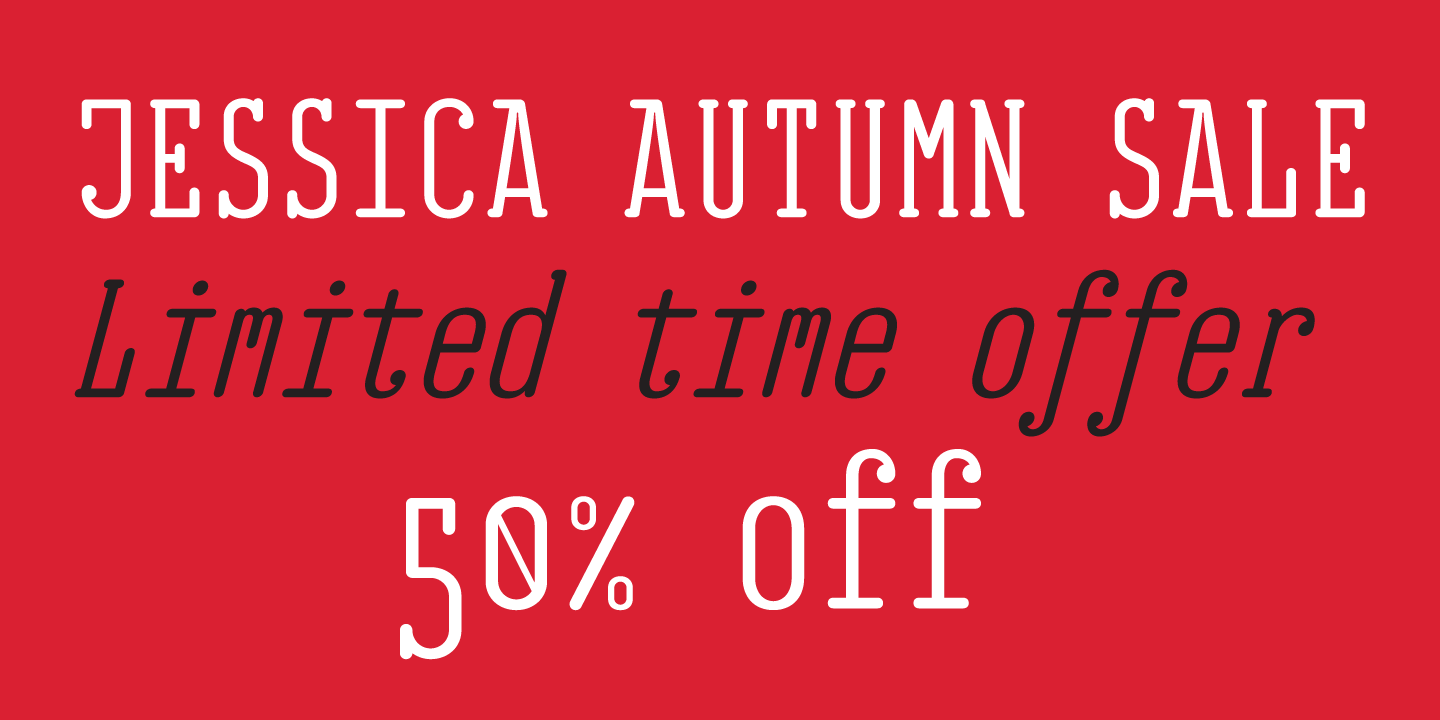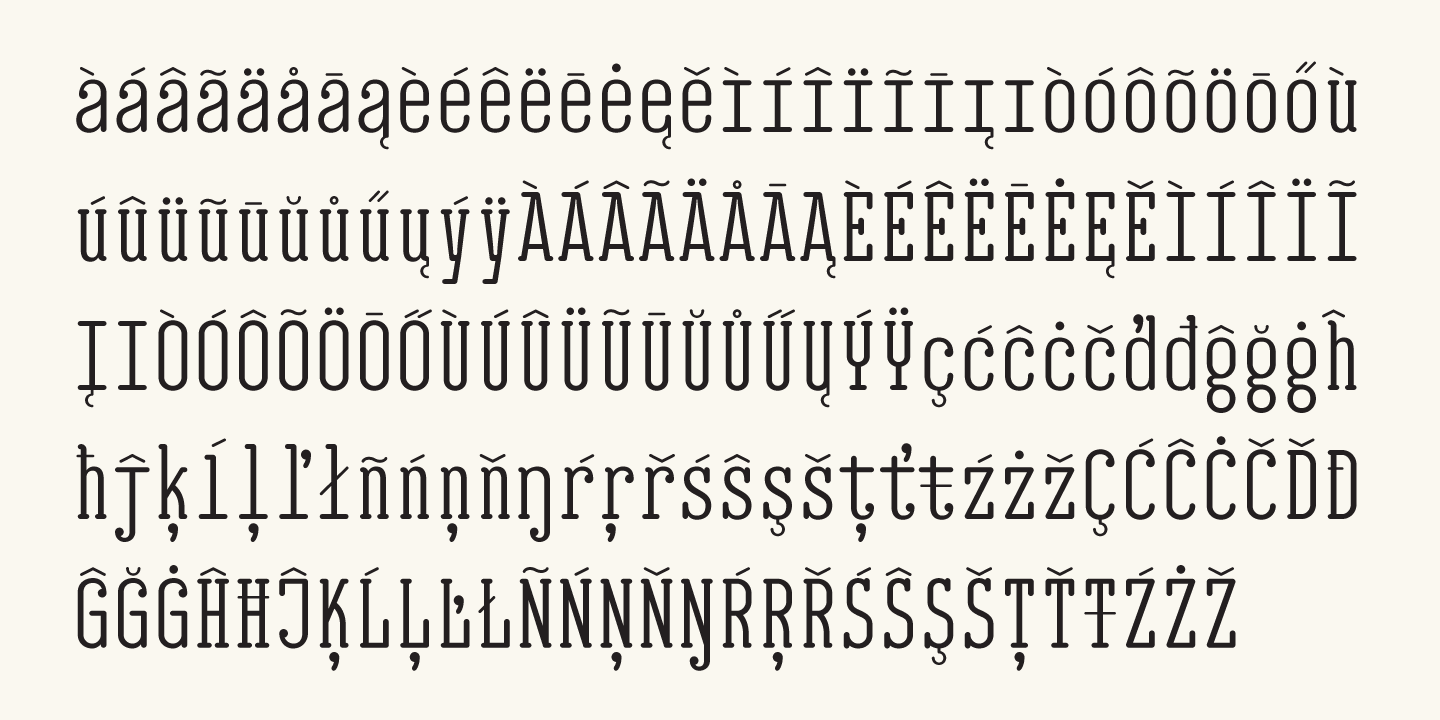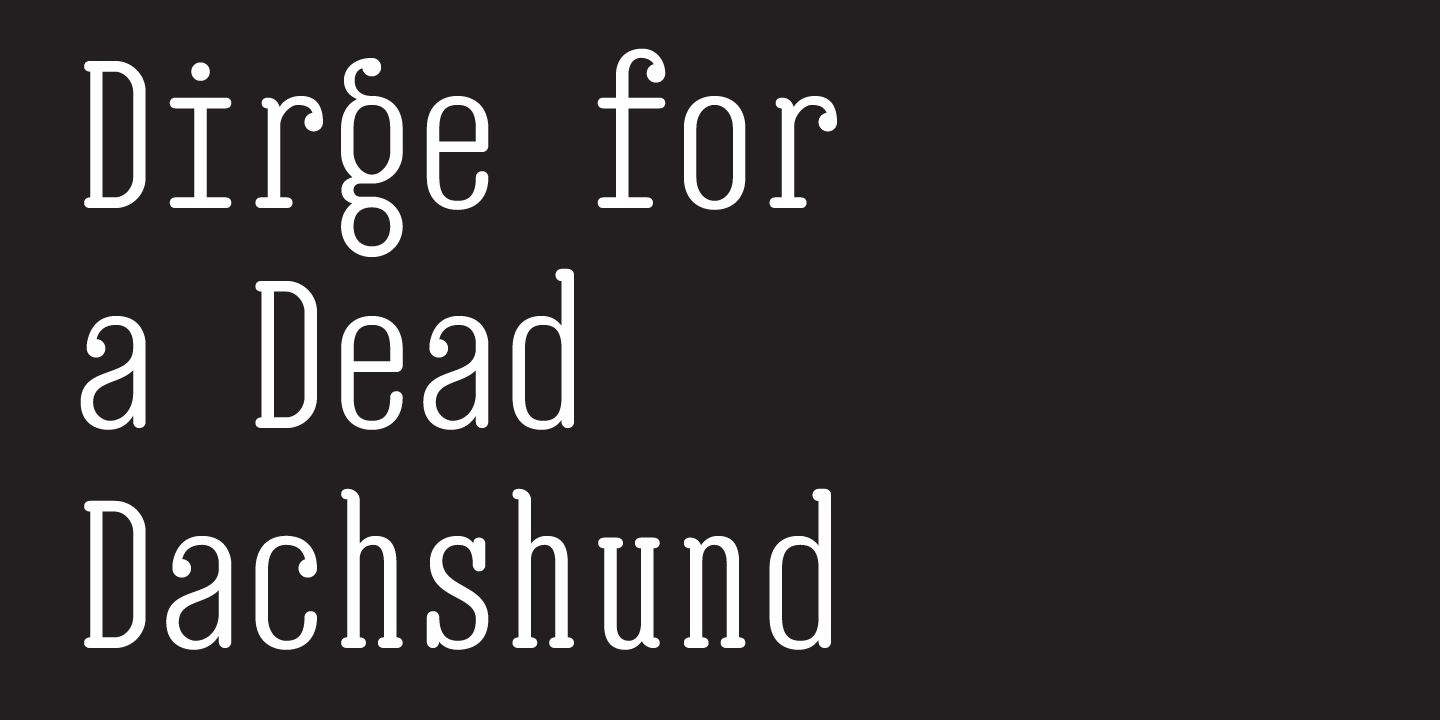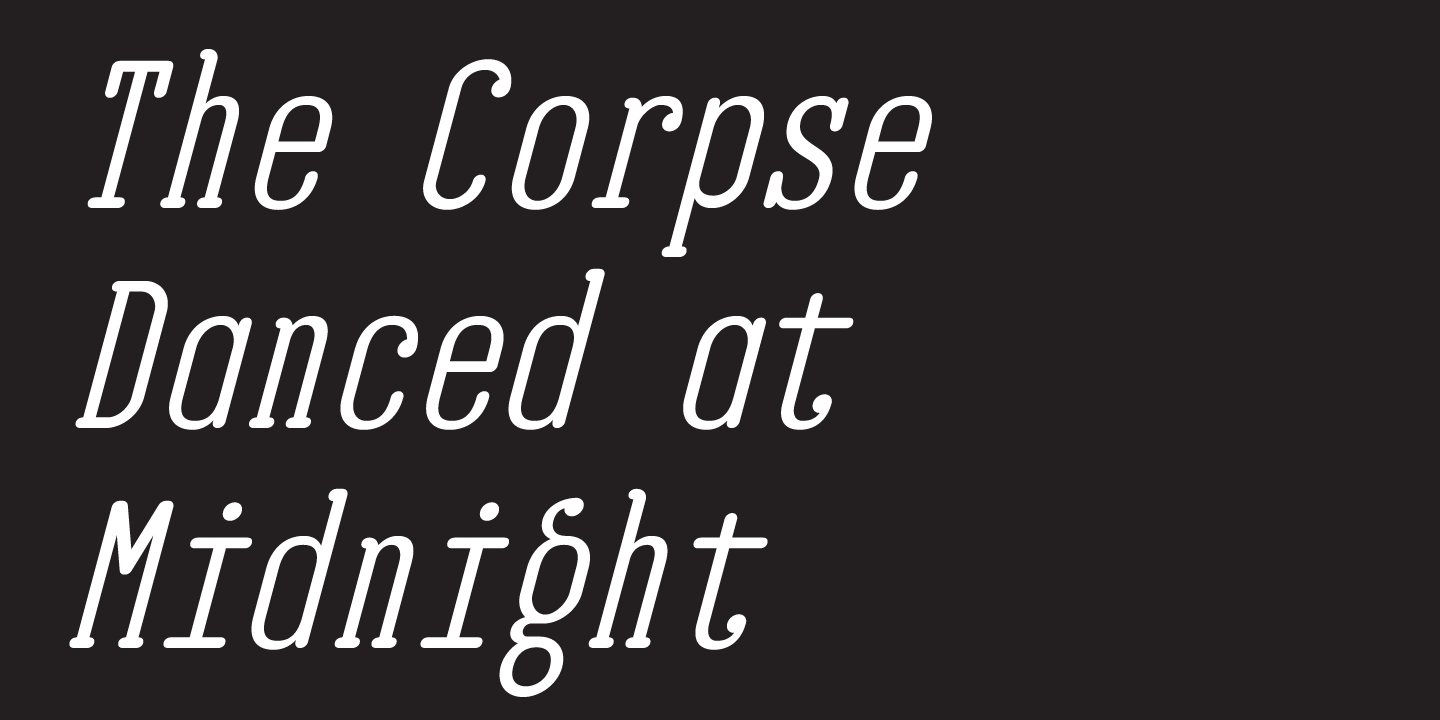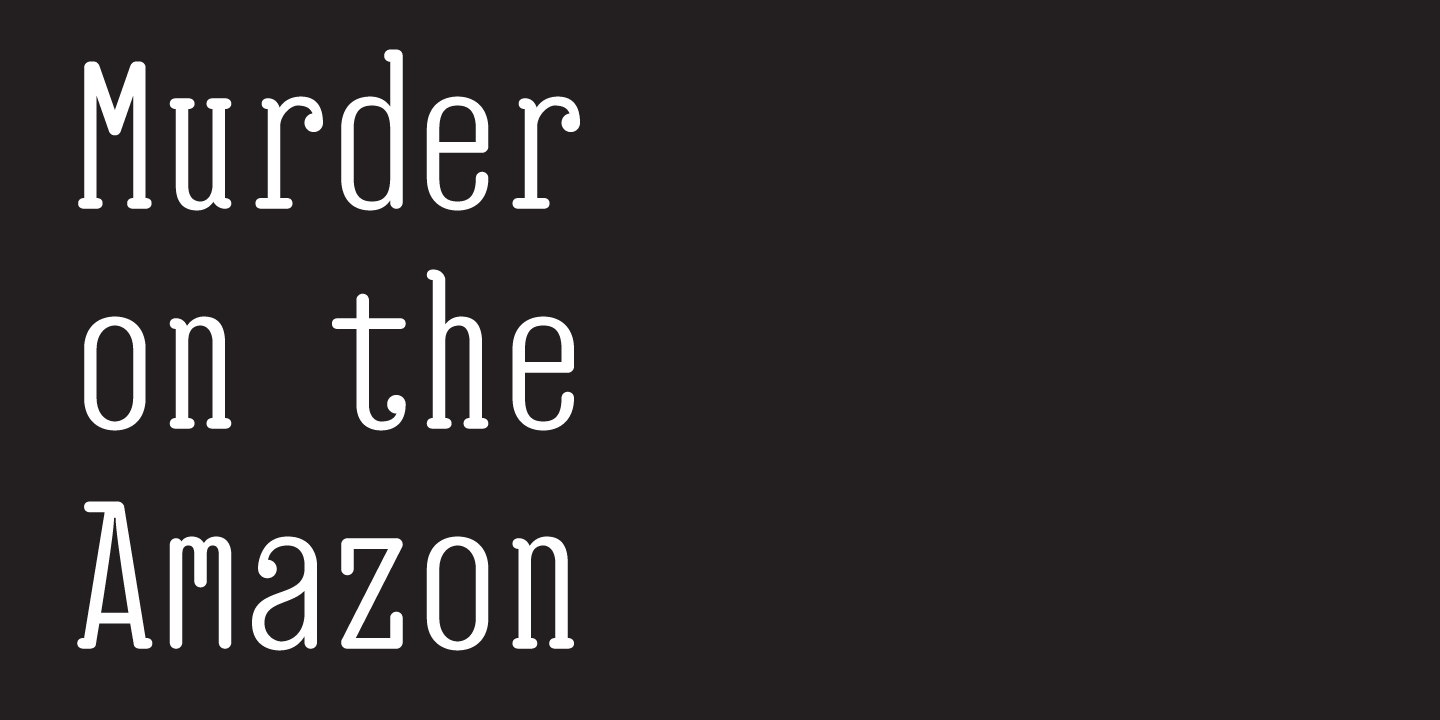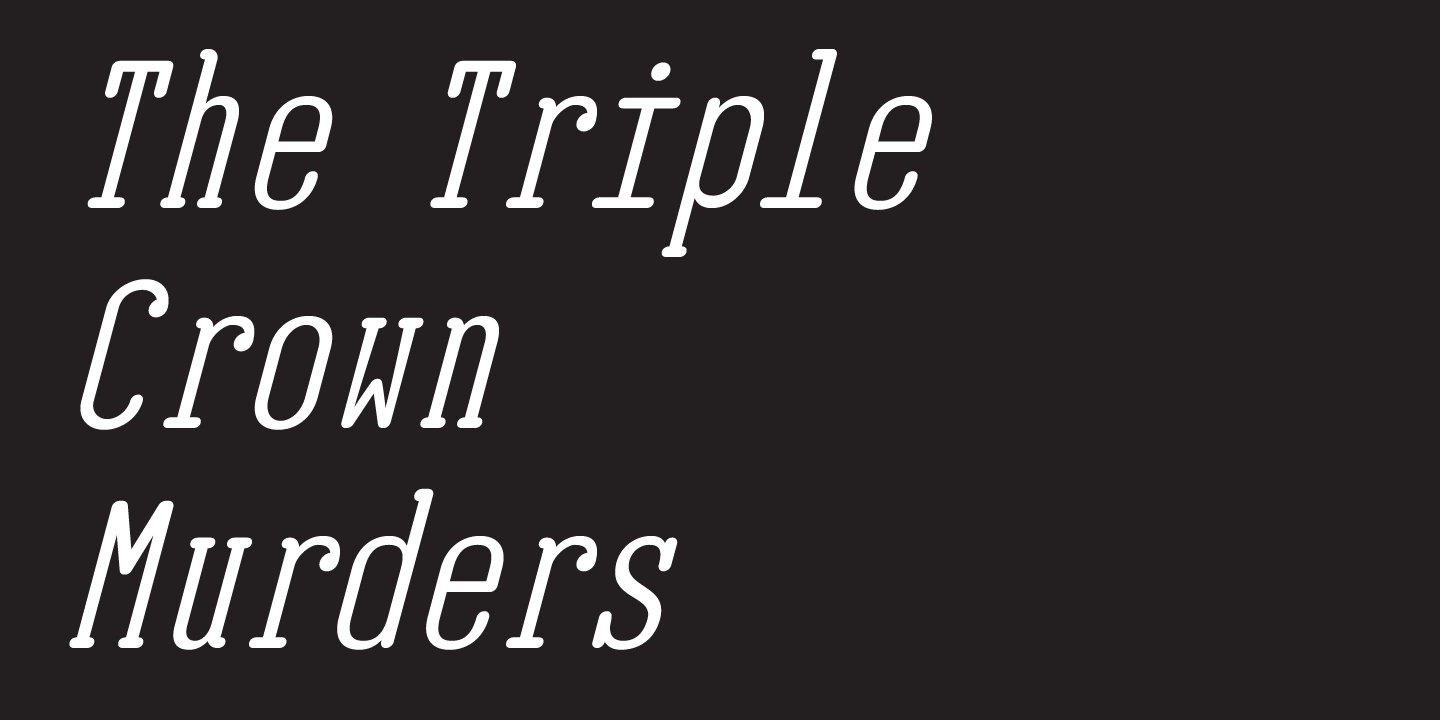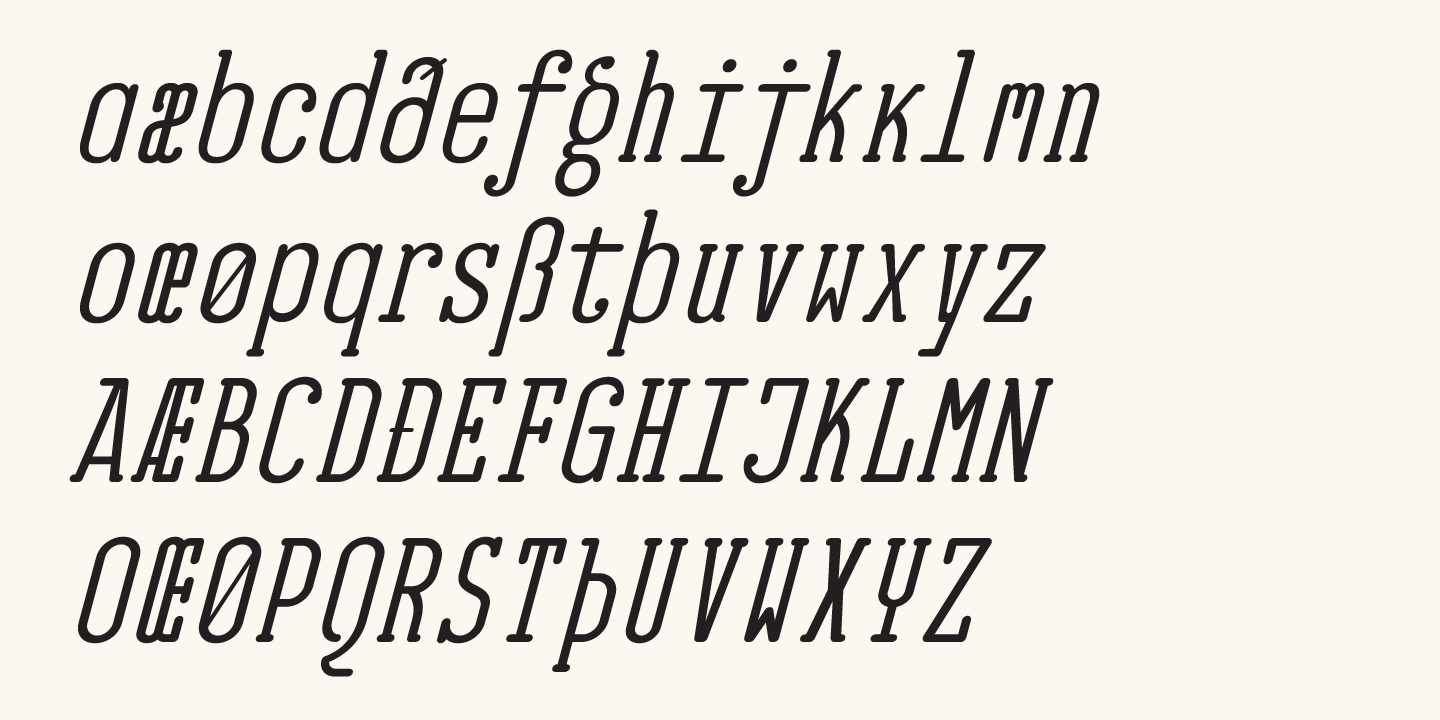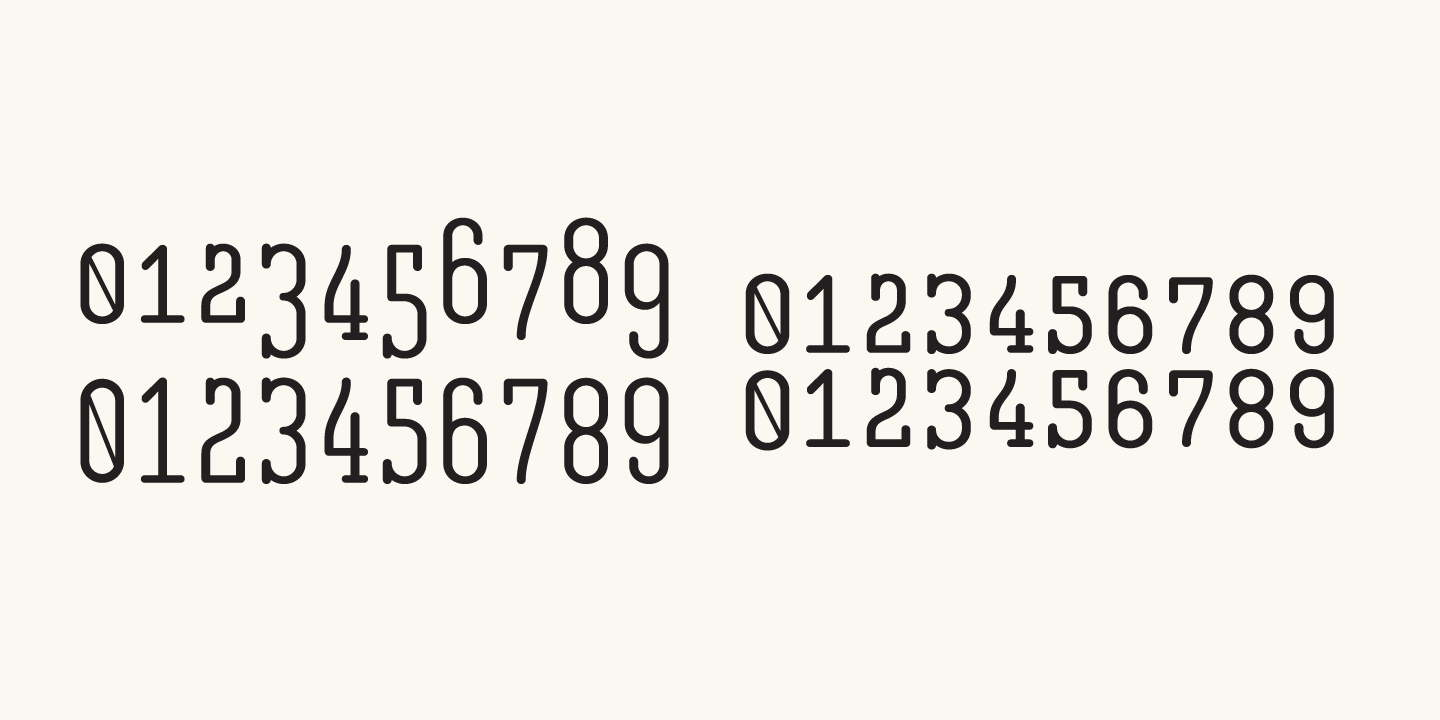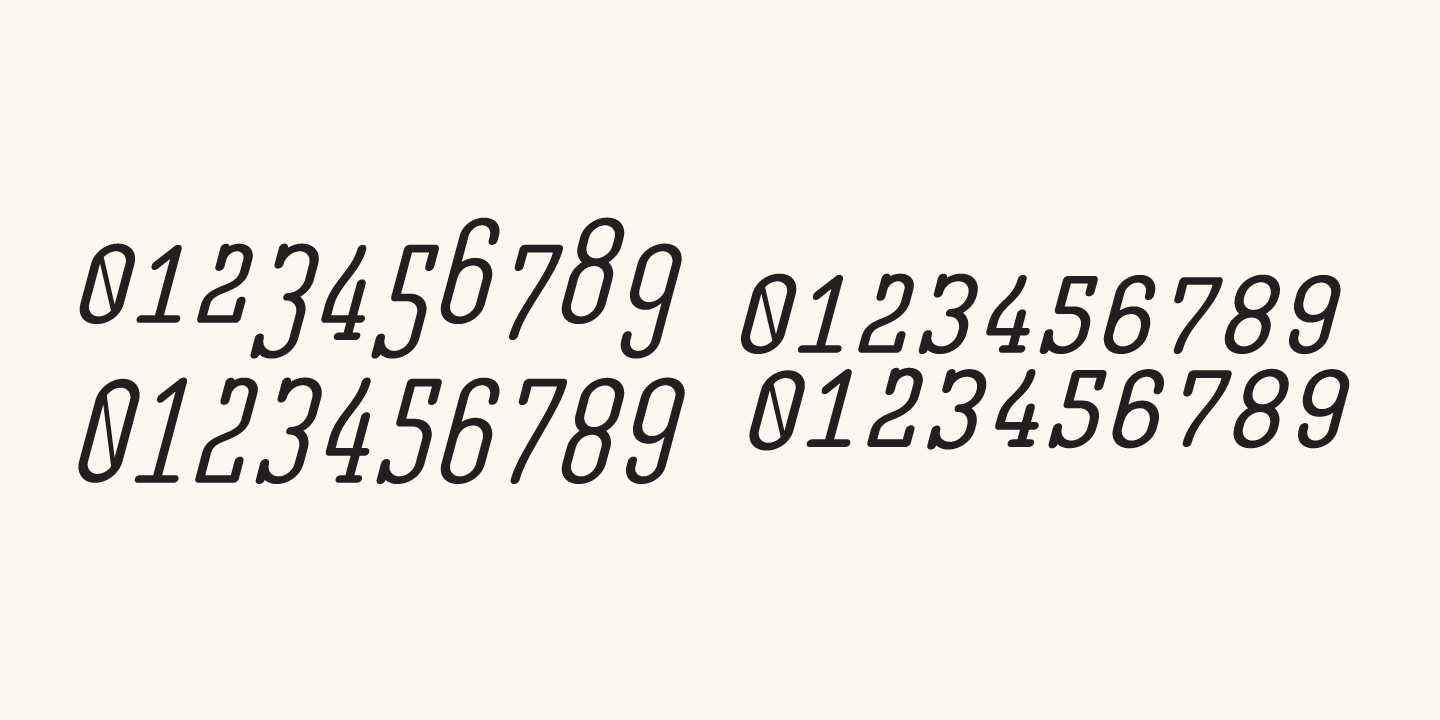
EB Jessica
Font Family by Fenotype
Originally designed in 2005 to be used in a brochure project, Jessica is a typewriter face with a sinister mood. Its peculiar original features have been retained but on the other hand, the font has had a monospacing treatment and some Open Type programming added for a more contemporary feel. The extended character set covers most European languages.